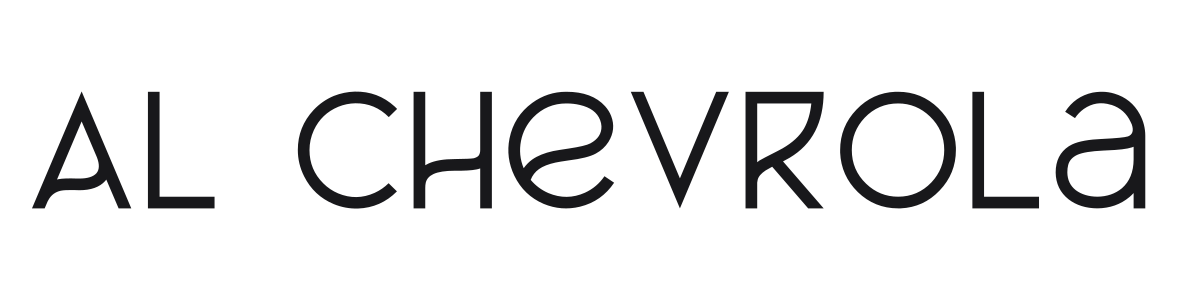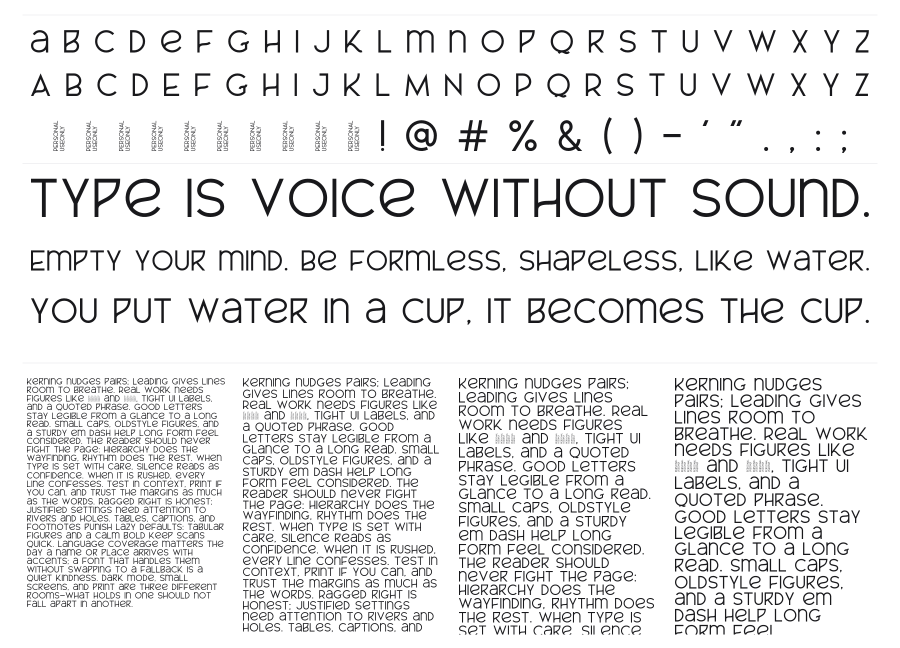
Al Chevrola
Al Chevrola is a geometric sans-serif with light, near-monoweight strokes and a playful mix of cap-height forms that borrow from both uppercase and lowercase construction. The circular characters carry a quiet Art Deco quality, giving the font a polished, retro-modern tension. It reads with confidence at large sizes, particularly in branding and editorial headlines.